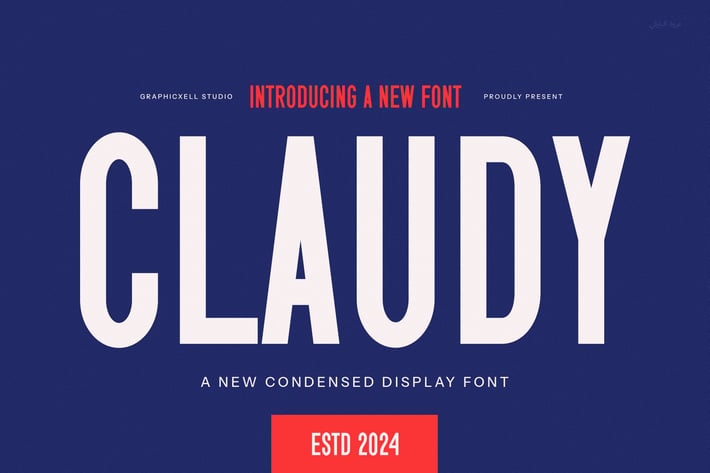
Claudy Modern Sans Serif Font
Claudy Modern Sans Serif Font Typeface inspired by the famous minimalist logo perfect for the purposes of designing templates, brochures, videos, advertising branding, logos, invitation, layout design, elegant crafting, beauty design and other